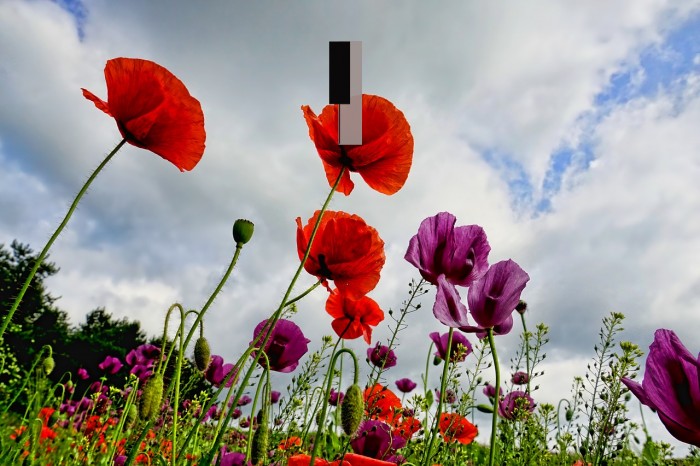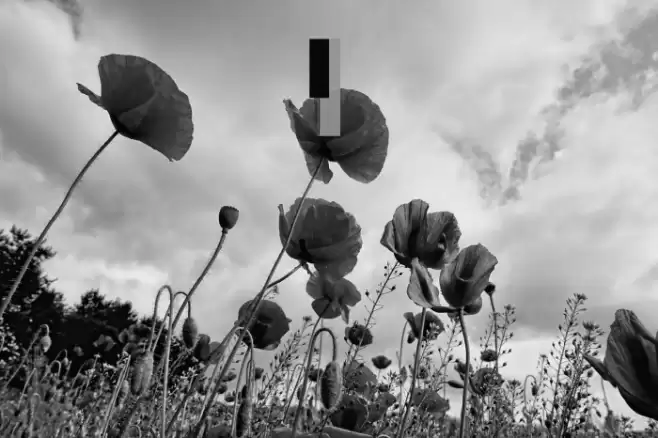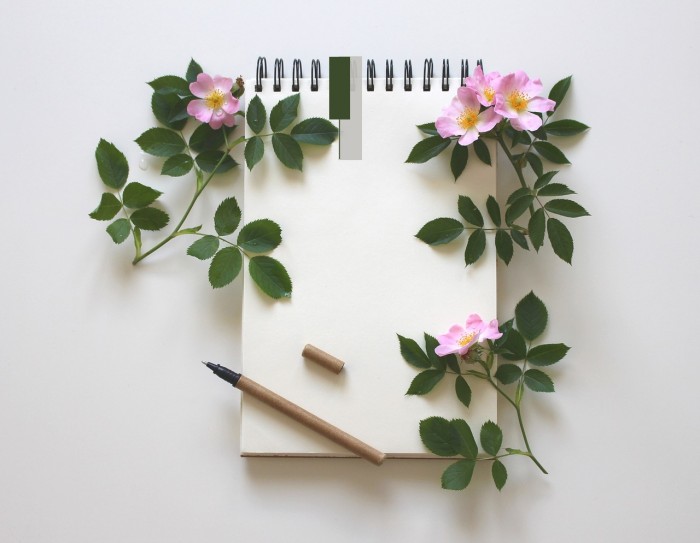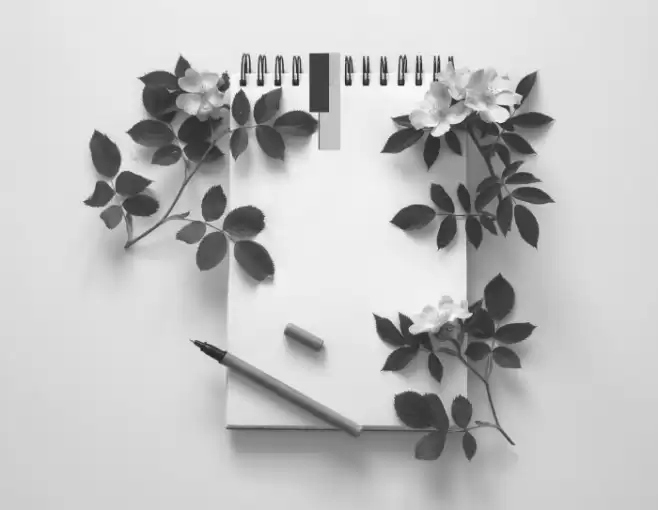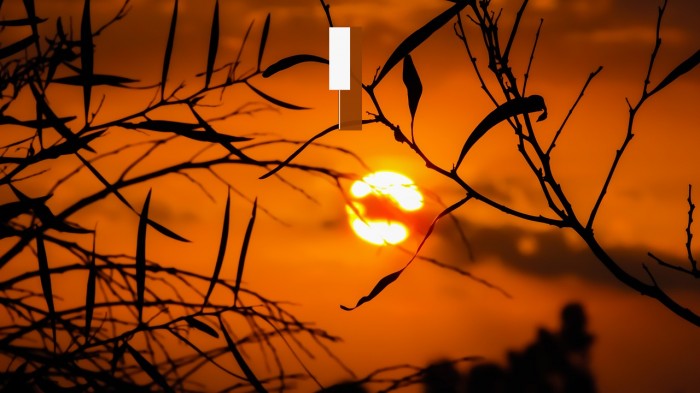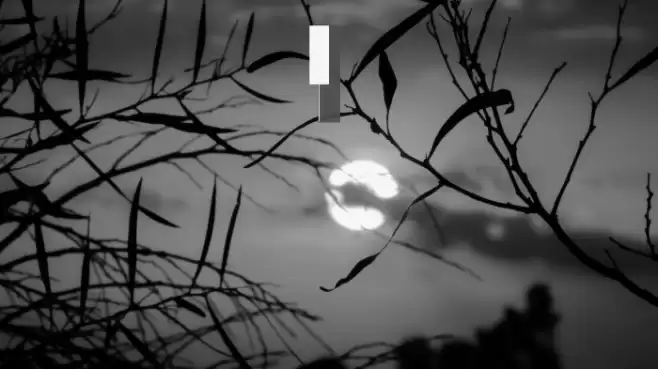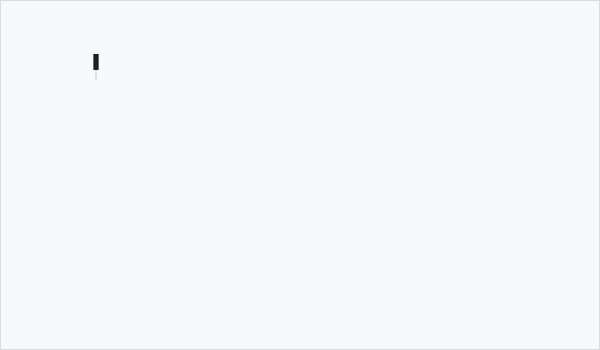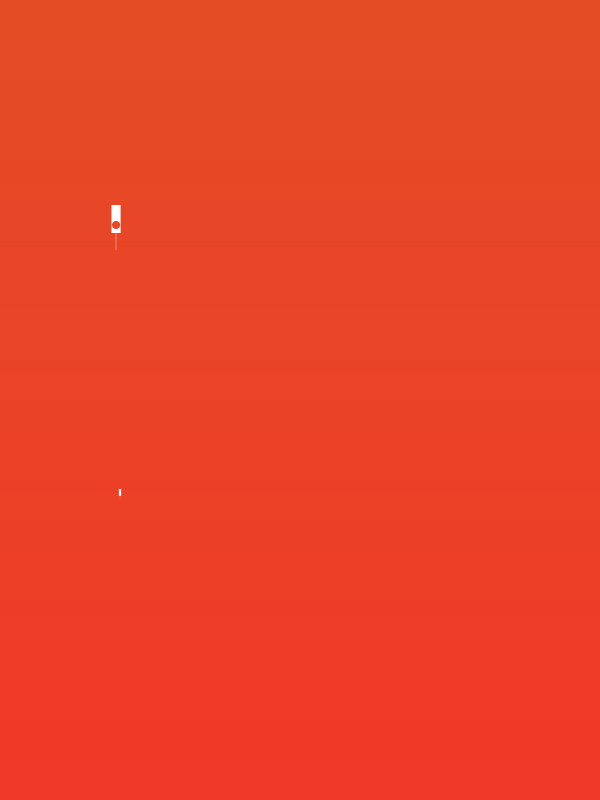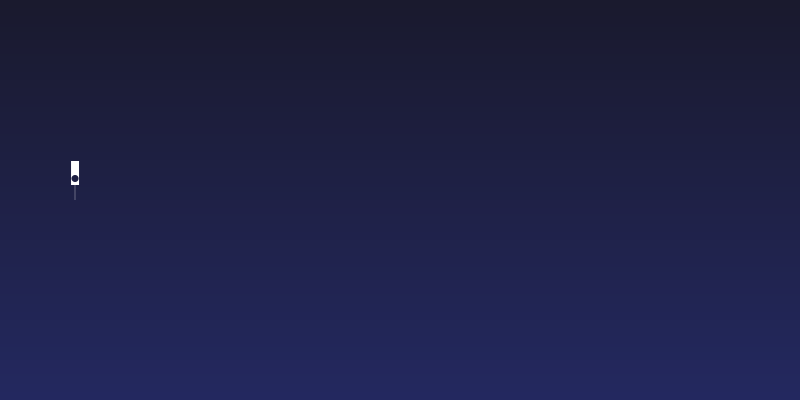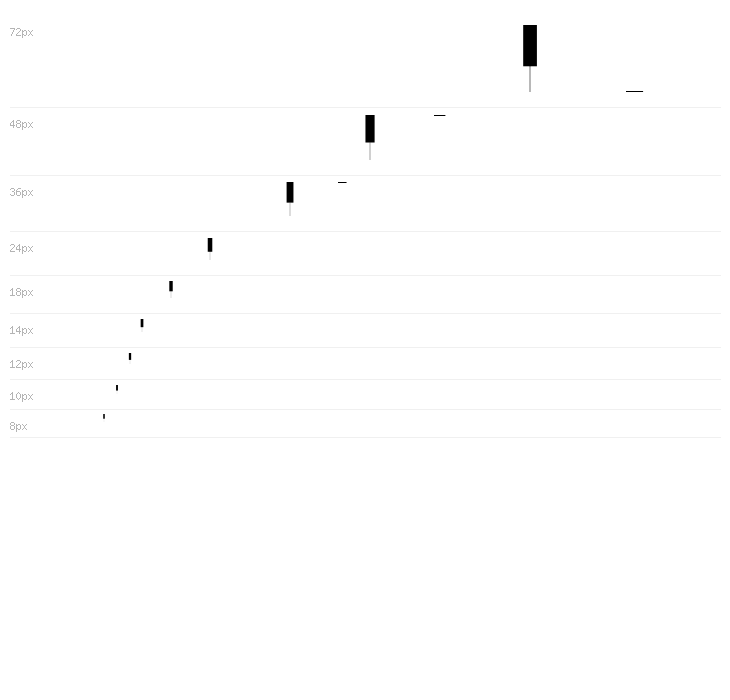
Keyboard Chord Diagram Regular Description
This is not a traditional font; it appears to be a set of diagrammatic symbols or icons, likely representing keyboard chord diagrams or musical notation, with simple geometric shapes and lines.
| Overall Style | Functional, Diagrammatic |
| Use Case | Chord diagrams, instructional graphics, music education. |
| Proposed Projects | Music notation software, educational materials, chord diagram generation, instructional graphics. |